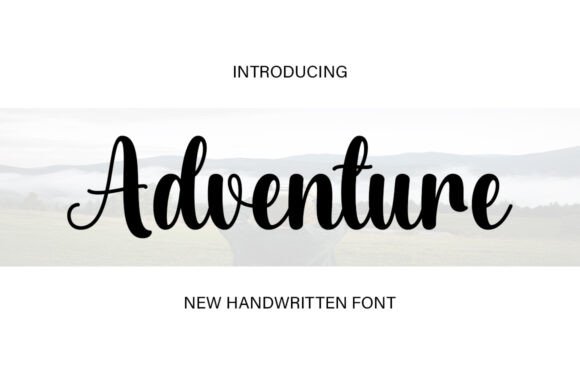
The Adventure Font: A Timeless Choice for Creative Designs
Have you ever been in the middle of a design project, and suddenly, you’re stuck on finding the perfect font? I recall a particularly frustrating experience while working on a branding project for a travel company. My client wanted a logo that exuded adventure, freedom, and a sense of exploration. I scoured the internet for hours, trying out different fonts, but none seemed to capture the essence of adventure. That’s when I stumbled upon the Adventure Font, and it completely transformed my design.
A Personal Review: What I Love About Adventure Font
The Adventure Font is a lovely and timeless handwritten font that has become a staple in my design toolkit. Here’s what I love about it:
- ✨ Unique and beautiful touch: Every letter has a distinct character that adds a personal touch to any design.
- ✅ PUA coded: Easy access to amazing glyphs and ligatures, making it a breeze to create stunning designs.
- 💫 Versatile: Perfect for creating eye-catching logos, branding, and quotes that capture the essence of adventure.
While the Adventure Font is an excellent choice, there are a few minor quirks to be aware of:
- ⚠️ Limited use in formal designs: The font’s playful nature makes it less suitable for formal or corporate designs.
- 🤔 Learning curve: With so many glyphs and ligatures available, it may take some time to get familiar with the font’s features.
The Adventure Font was created with the intention of capturing the essence of exploration and freedom. The designer, inspired by vintage travel posters and handwritten letters, aimed to create a font that would evoke a sense of adventure and wanderlust. The result is a timeless font that’s perfect for creative designs and branding.
| Font Name | Adventure Font |
| Author | DN Creative |
| What is the Adventure Font best used for? | The Adventure Font is perfect for creating eye-catching logos, branding, and quotes that capture the essence of adventure. |
| Is the Adventure Font PUA coded? | Yes, the Adventure Font is PUA coded, making it easy to access amazing glyphs and ligatures. |